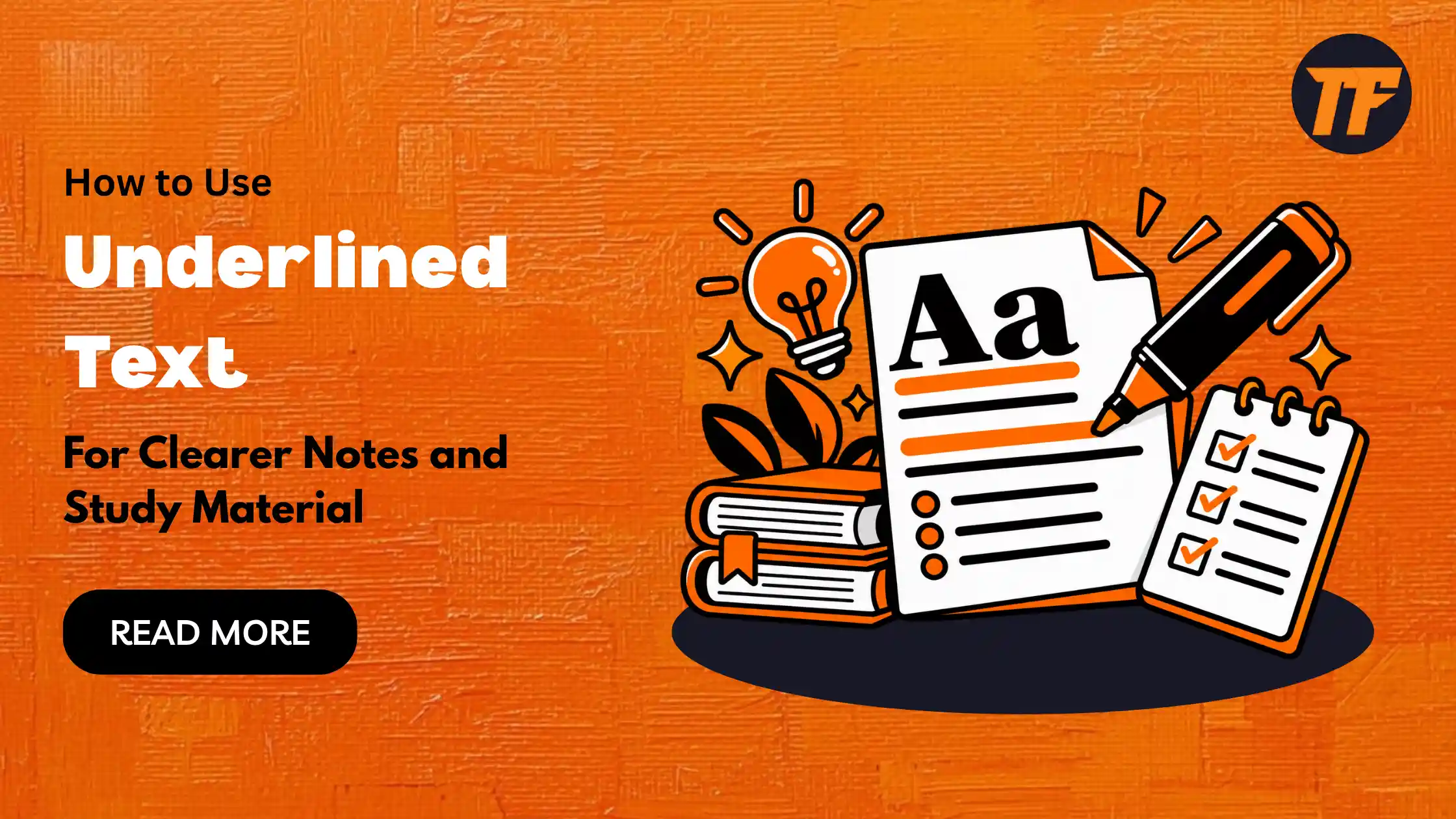
Good notes should make important information easy to find when you review them later. Simple formatting can help you organize information without making your notes look crowded.
Underlined text is one of the basic formatting options you can use to give extra attention to specific words or phrases. It can work well for definitions, key terms, formulas, dates, and important points.
However, underlining too much can make your notes difficult to scan. The key is to use it only where it adds value. In this article, we will explain what underlined text is, how to use it in study material, and the benefits it can provide.
Underlined text is text with a horizontal line placed beneath the characters. It is a common formatting style used to make specific words or phrases stand out from the surrounding text.
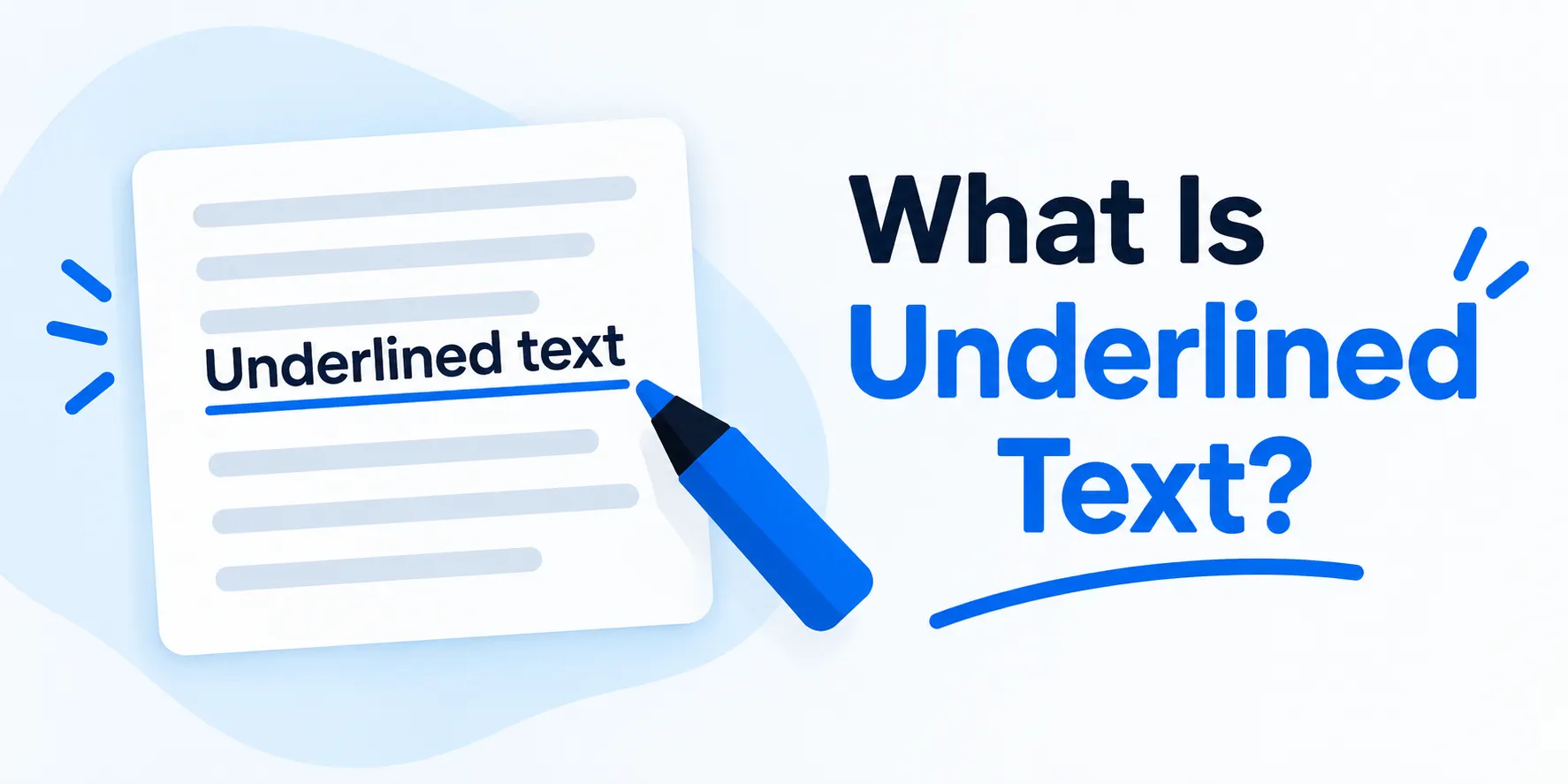
For example:
Normal text: Photosynthesis is the process plants use to make food.
Underlined text: Photosynthesis is the process plants use to make food.
You can use underlined text in handwritten notes, digital documents, presentations, worksheets, and other study material. It is especially useful when you want to draw attention to a specific part of a sentence without changing the rest of the content.
Underline important terms that you need to remember or review later. This works particularly well for subjects with many definitions and concepts.
For example, in biology notes, you could underline terms such as cell membrane, mitochondria, or photosynthesis. This makes important vocabulary easier to find during revision.
Definitions are often important parts of study material. Underlining the main term or the most important part of its definition can help you locate it quickly.
You do not need to underline the entire definition. Focus on the key term and the words that explain its meaning.
Use underlining for facts, dates, names, and figures that you need to remember. For example, in history notes, you could underline the date of an important event or the name of a key person.
This gives these details more visual importance without changing the structure of your notes.
Underlining can also help separate formulas, equations, rules, and important instructions from other information.
For example, when taking math notes, you can underline the formula you need to use for a particular type of problem. This makes it easier to find when solving practice questions.
If a paragraph contains several details, underline the main point rather than the whole paragraph. This helps you identify the information you need without making every sentence look equally important.
Try to keep the underlined part short and specific.
Create a simple formatting habit and follow it throughout your notes. For example, you could use underlined text only for key terms and definitions.
Using the same system across your study material makes your notes easier to understand when you return to them later.
Underlining loses its purpose when almost everything is emphasized. If you underline complete paragraphs or several sentences on every page, important information will no longer stand out.
Choose only the information that you are most likely to need during revision.
Underlining does not have to do all the work. You can use headings, bullet points, bold text, spacing, and highlighting to organize your notes.
For example, use headings for major topics, bullet points for supporting information, and underlined text for key terms within those points.
Using underlined text can make study material easier to read, organize, and review. When used selectively, it can help students focus on the information that matters most.
Makes key information stand out: Underlining draws attention to important words, phrases, and facts.
Makes revision faster: Underlined points are easier to spot when quickly reviewing notes before a test or exam.
Improves note organization: It helps separate important information from supporting details.
Highlights important concepts: You can use it to emphasize definitions, formulas, dates, rules, and other key points.
Makes digital notes easier to scan: Underlined text can help readers find specific information without reading every line.
Underlining can make important information easier to find, but using it incorrectly can make your notes harder to read and review. Avoid these common mistakes:
Underlining too much: Avoid underlining entire paragraphs or most of the page. It makes it harder to identify the information that actually matters.
Using underlining for everything: Keep underlining for key terms, definitions, formulas, dates, and other important points.
Using inconsistent formatting: Follow the same underlining style throughout your notes so the meaning stays clear.
Underlining long sentences: Focus on important words or short phrases instead of marking complete sentences.
Ignoring readability: Make sure the underline does not make the text difficult to read, especially in digital notes.
Neither option is always better. Underlining works well for specific words and phrases, while highlighting can be useful when you need to emphasize a larger section of text.
Yes. Most word processors, note-taking apps, and online document tools provide an underline formatting option.